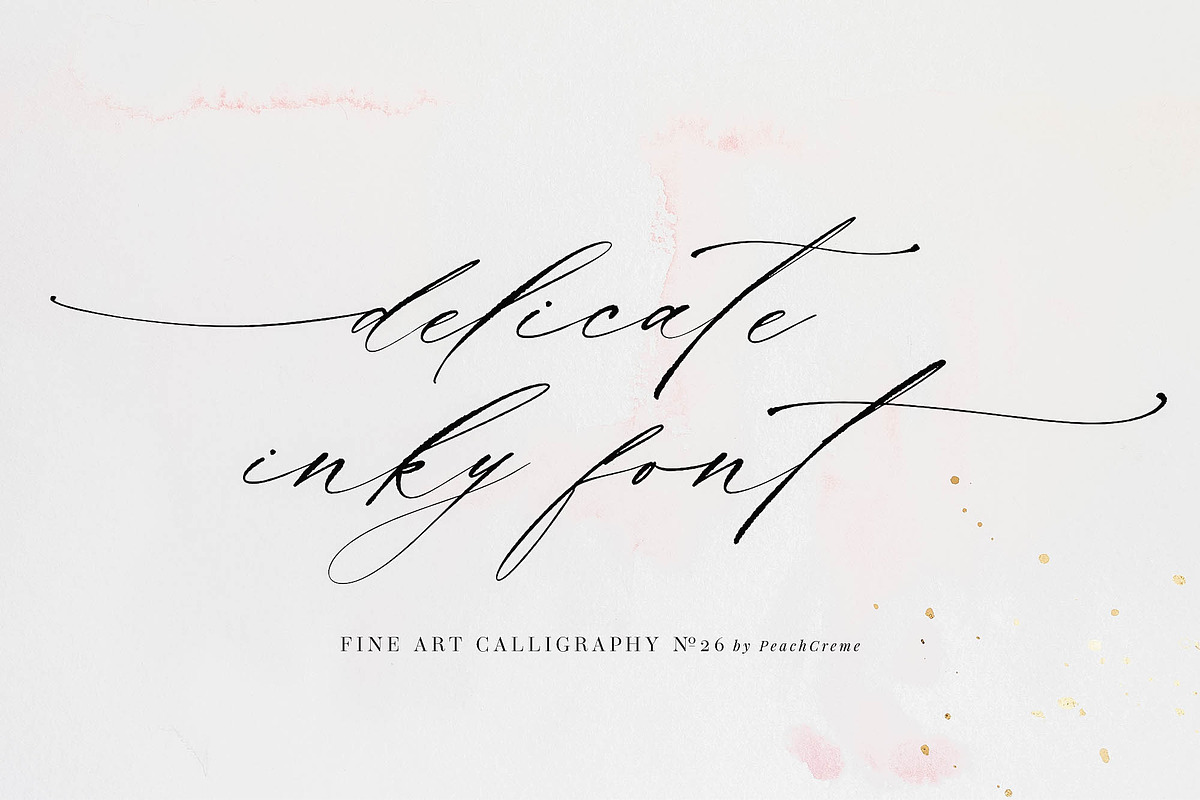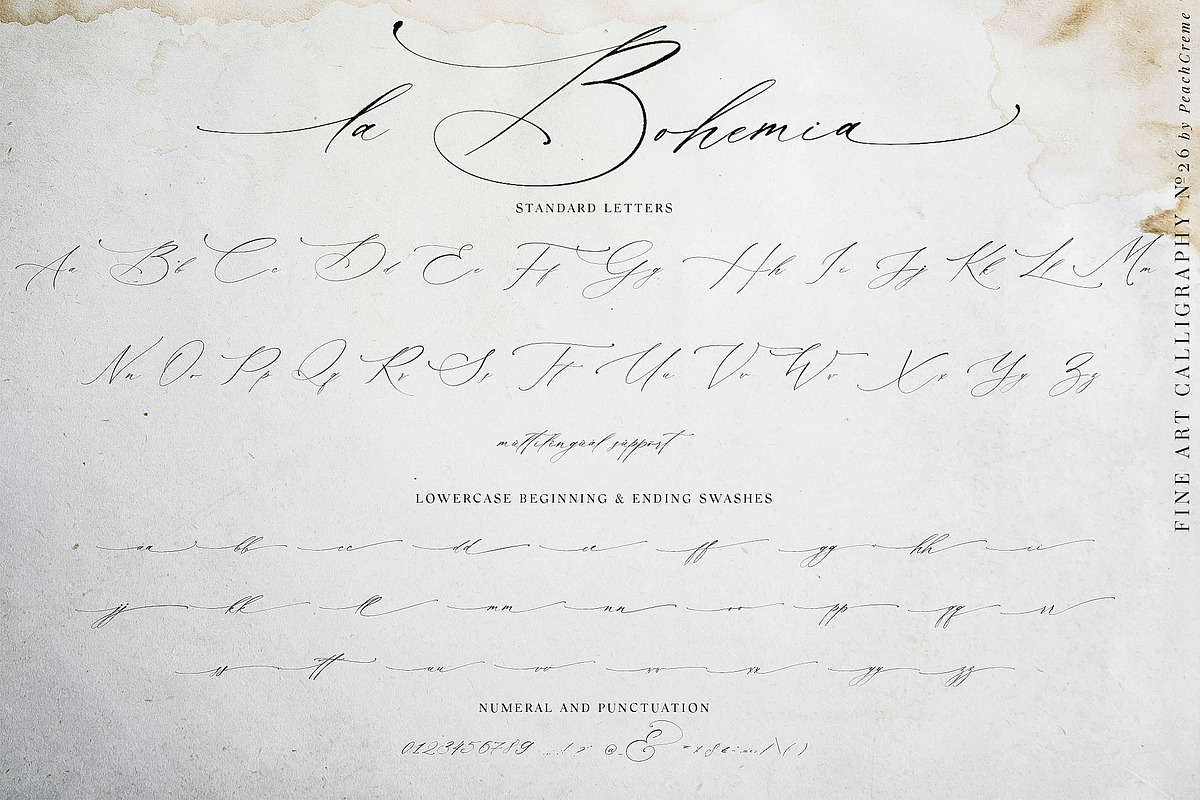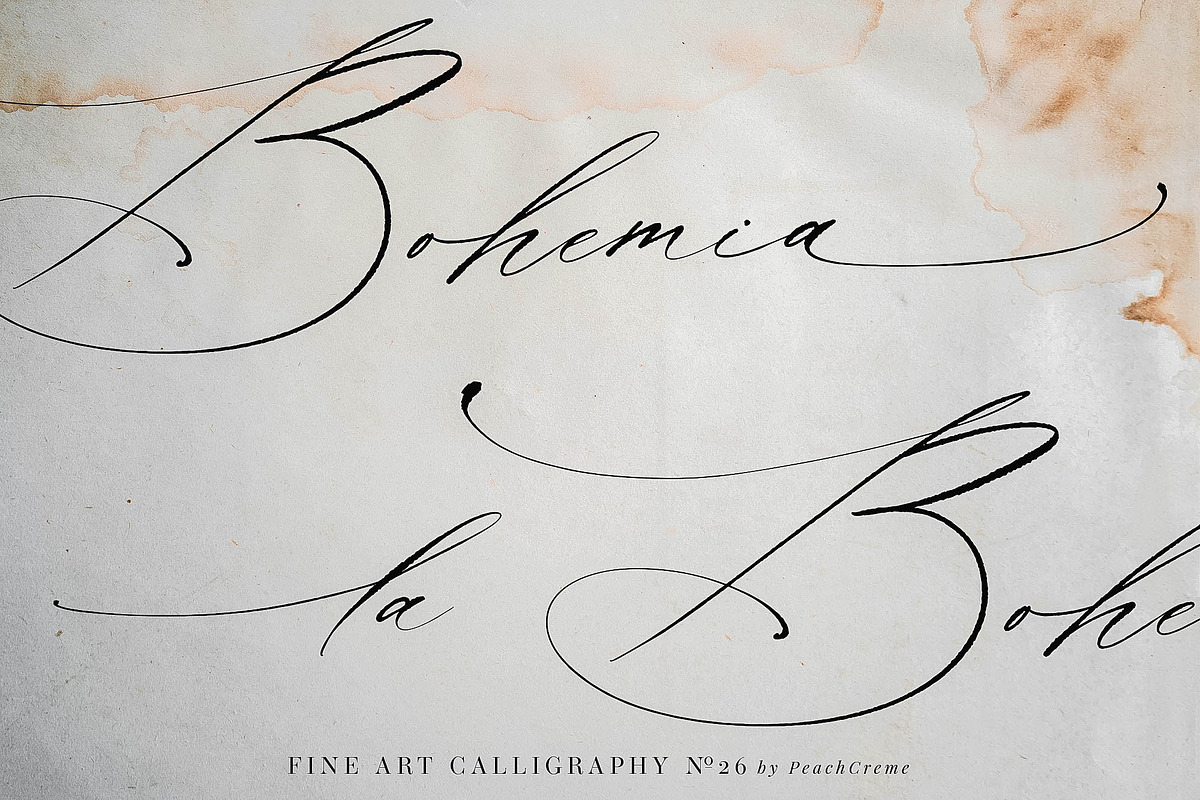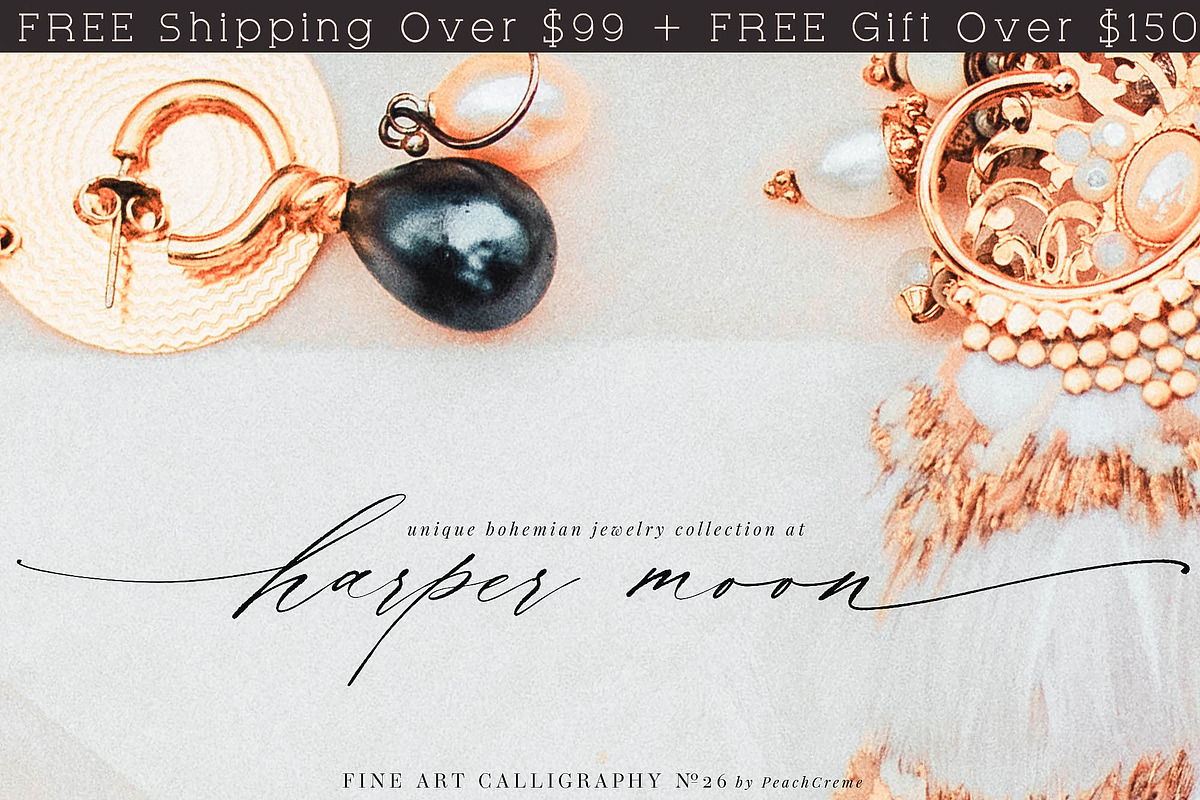
La Bohemia // Fine Art Calligraphy
La Bohemia is a crème de la crème modern calligraphy font with contemporary, sophisticated accents. It is perfect for branding, wedding invites and cards, and maybe for red wine label.
La Bohemia includes full set of gorgeous uppercase and lowercase letters, numerals, a large range of punctuation and ligatures. All lowercase letters include beginning and ending swashes, giving realistic hand-lettered style. The texture of the font is inky and rough. It expresses beauty of handwriting. What you get, darling?